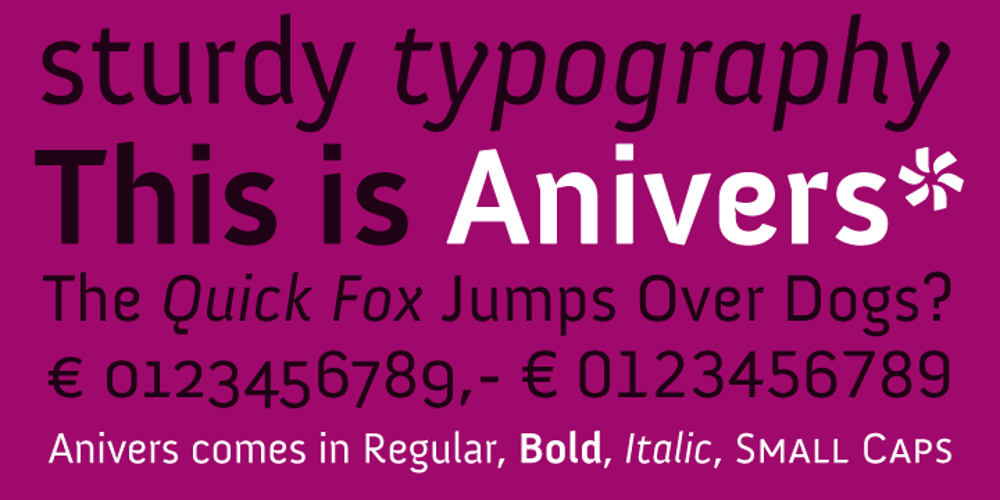
Anivers
Anivers font
Anivers Font Family was designed by Jos Buivenga and published by exljbris. Anivers contains 4 styles and family package options. Anivers is robust and rigid, forgiving, flexible and elegant … and also suitable for a broad use: from a stationery to a poster headline. From an intro in a magazine to a base for a logo. This OpenType font family comes in regular, italic, bold and small caps and offers supports CE languages and even esperanto.